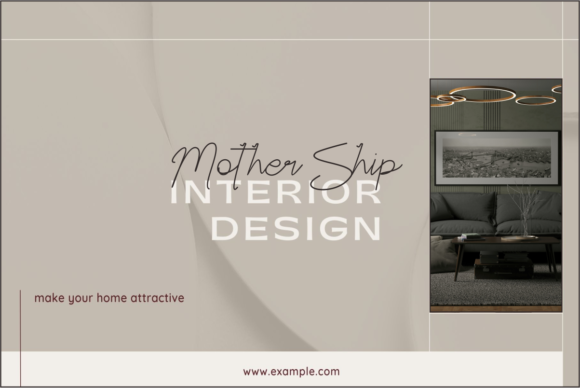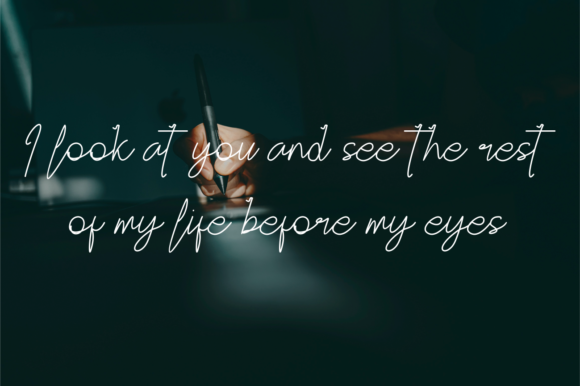
Christine Pallmer Font
db-ku.com - Script & Handwritten -- Christine Pallmer is a flowing handwritten font, described by an elegant touch, perfect for your favorite projects. Fall in love with its incredibly distinct and timeless style and use it to create spectacular designs!